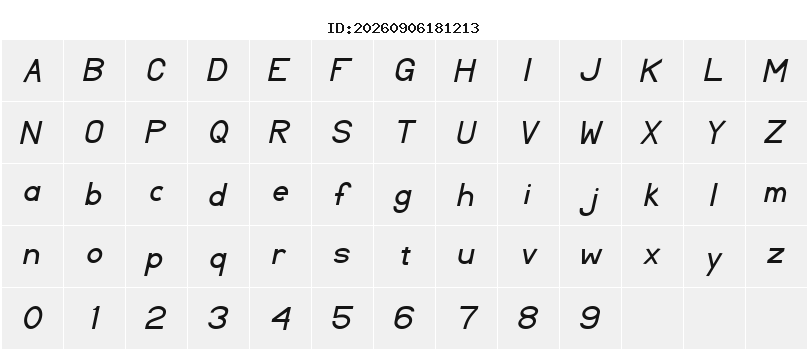
• Font Name: TL Sans Serif
• Full Font Name: TL Sans Serif Italic
• PostScript Name: TL-SansSerifItalic
About TL Sans Serif.ttf
TL Sans Serif.ttf is a modern, elegant sans-serif font designed for ultimate readability and visual harmony. Perfect for branding, headlines, web design, and print materials.